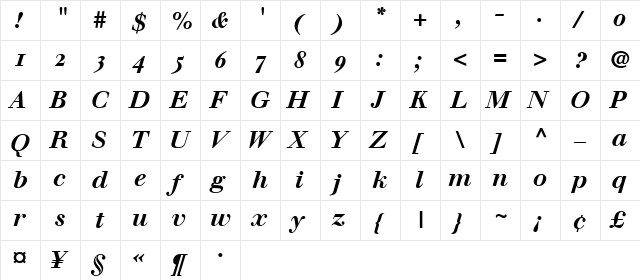
Walbaum ItalicBold Font Preview
Walbaum ItalicBold
Design Context for Walbaum Typeface
Walbaum is a composed and adaptable typeface that performs quietly and consistently across a wide range of design contexts. Its italic angle brings a sense of urgency and motion to the letterforms. Its bold stroke weight gives it real presence on the page.
Pro Tip: Use Walbaum for emphasis, pull quotes, and subheadings where its slanted energy can add rhythm to the layout.